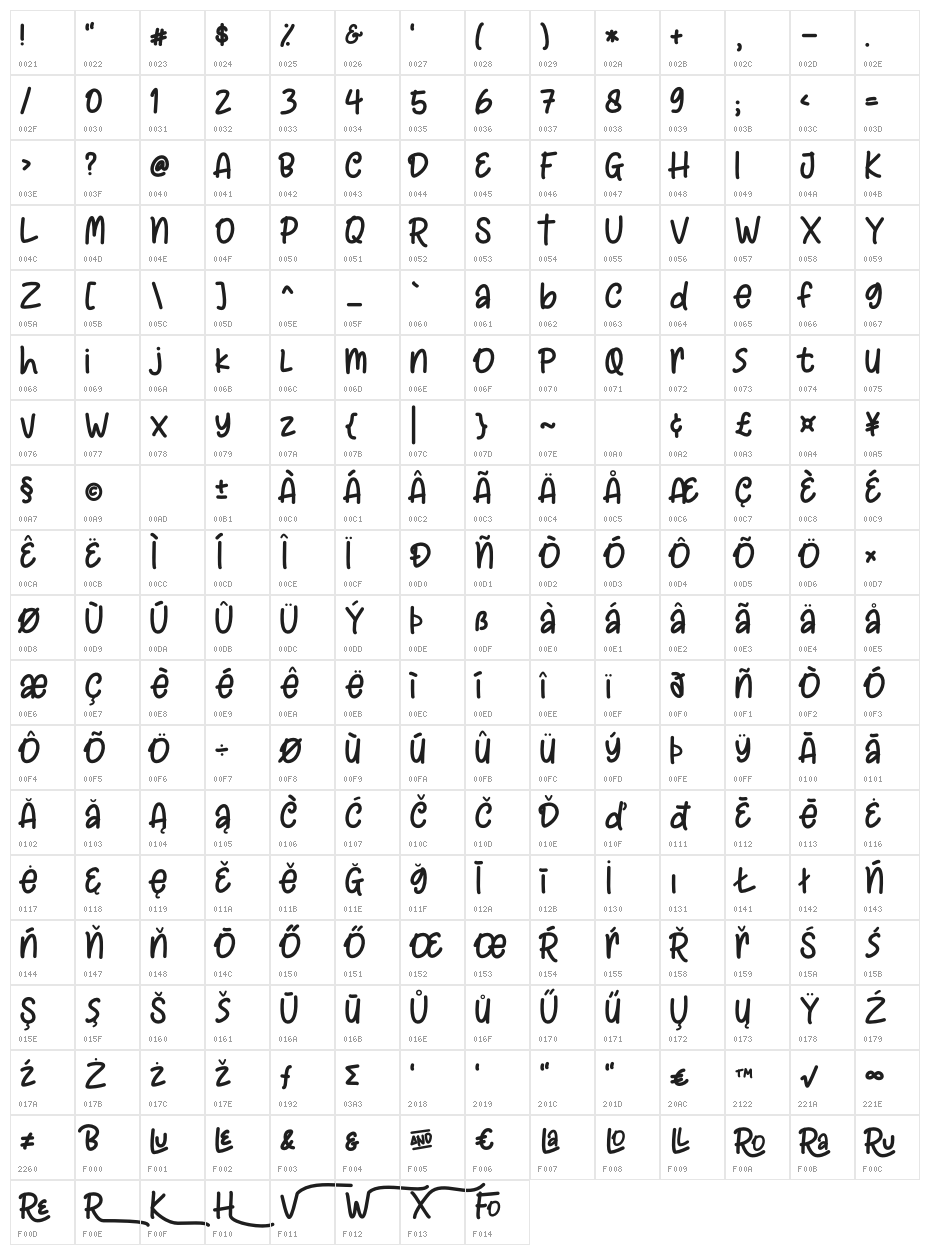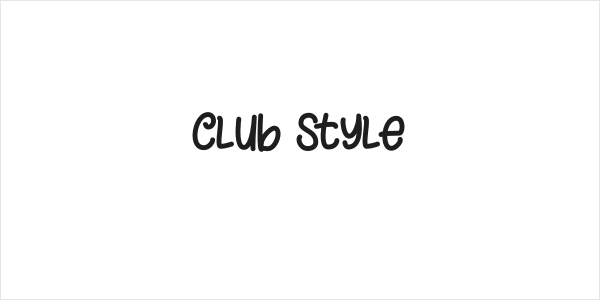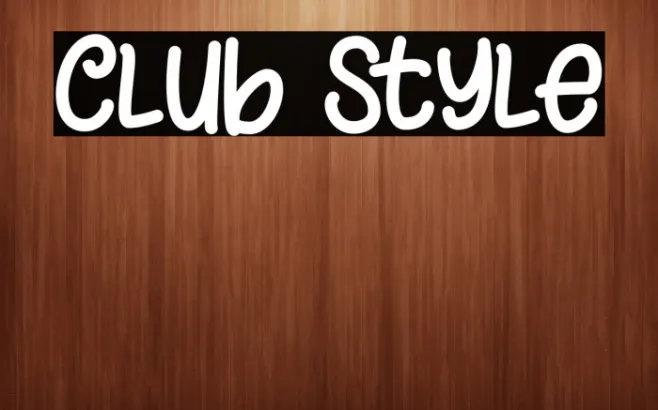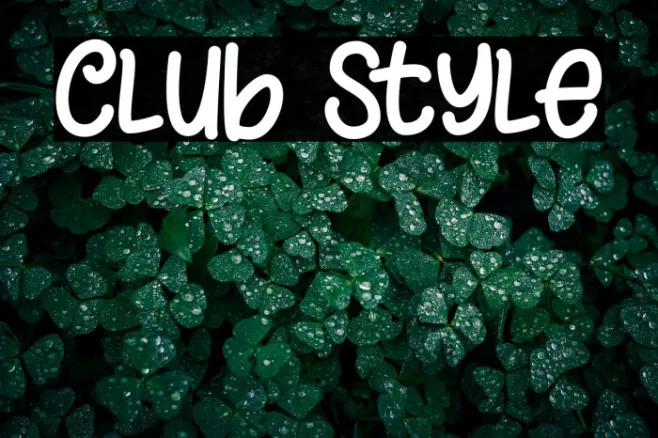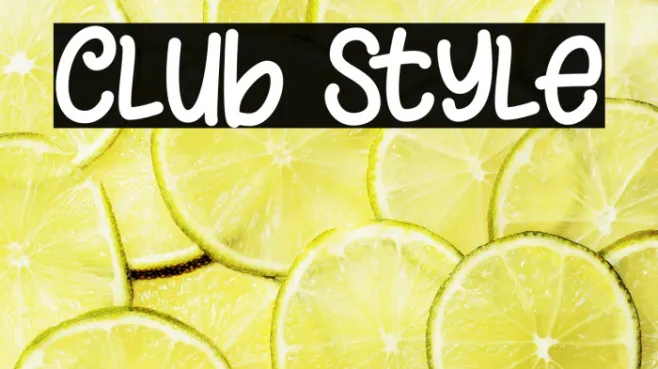
Club Style Font
Club Style Description
This font features a playful and energetic style, characterized by its bold, rounded letters that convey a sense of fun and informality. The strokes are consistent in weight, giving it a uniform appearance, while the slightly irregular shapes add a touch of whimsy. The uppercase and lowercase letters are well-proportioned, with a smooth flow that enhances readability. Numbers and special characters maintain the same lively aesthetic, making this font versatile for various creative applications. Its handwritten feel is perfect for projects that require a personal touch, such as invitations, posters, and social media graphics.
| Proposed Projects | Ideal for invitations, posters, social media graphics, and any project needing a personal, fun touch. |